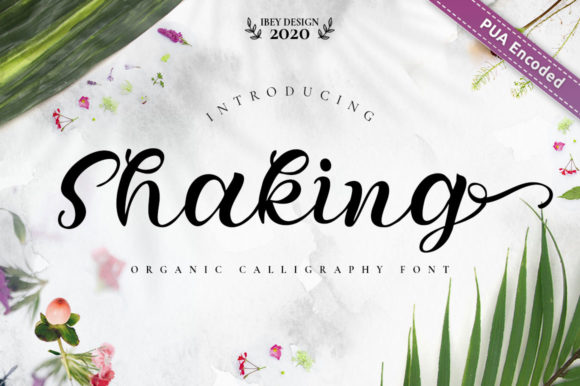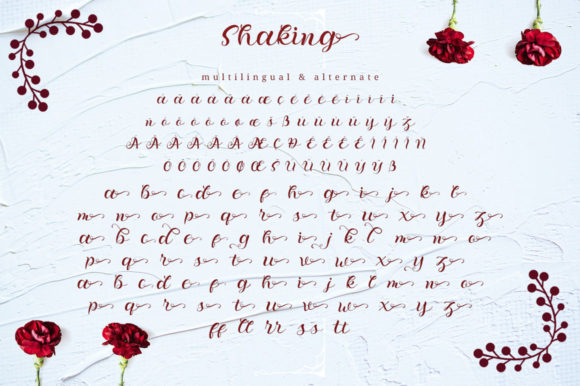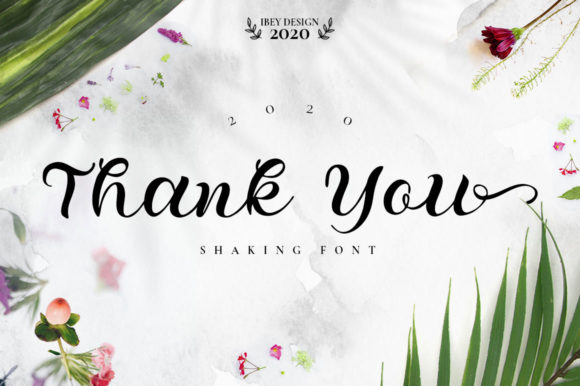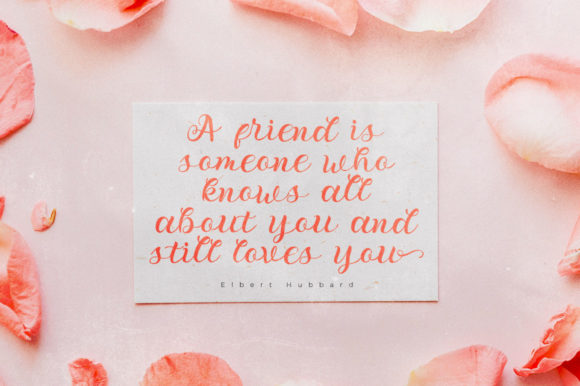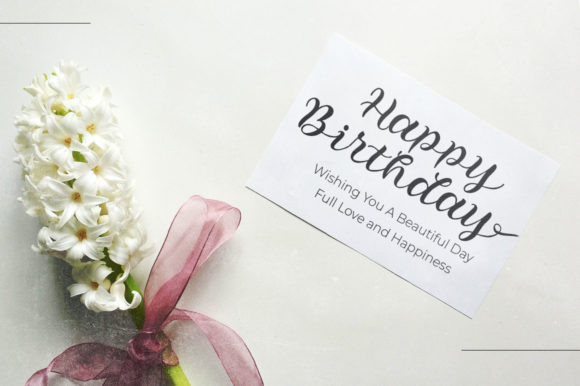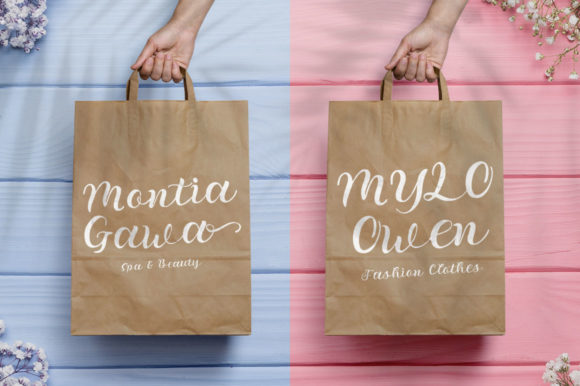
About Shaking Font
Introducing “Shaking,” an exquisite and flowing handwritten font that exudes elegance and sophistication. With its smooth lines and varying baseline, this font effortlessly captures the essence of calligraphy while infusing a contemporary and fresh touch. It is designed to elevate your creative projects to new heights, making them stand out with its stunning alternates and gorgeous glyphs.
The PUA encoding of “Shaking” provides easy access to all the glyphs and swashes, allowing you to explore the font’s full potential and unleash your creativity. Whether you’re working on wedding invitations, thank you cards, quotes, greeting cards, logos, business cards, or any other design that requires a handwritten touch, “Shaking” is the perfect choice to add a touch of elegance and charm.
This font’s versatility allows it to complement a wide range of design styles and themes, making it an ideal choice for both formal and casual projects. Its flowing and sophisticated appearance makes it perfect for elegant and classy designs, while its contemporary flair allows it to fit seamlessly into modern and trendy artworks.
With “Shaking” as your creative tool, you can craft wedding invitations that exude refined beauty and leave a lasting impression on your guests. Express gratitude and warm wishes with thank you cards that are a true work of art. Create captivating quotes and greeting cards that touch the hearts of your audience and leave them inspired.
Branding your business or personal projects with “Shaking” adds a touch of professionalism and style. Its classy calligraphic influences give your logos and business cards an air of sophistication, making your brand memorable and unforgettable.
“Shaking” allows you to bring a sense of fluidity and elegance to every design, making it an essential addition to your font collection. Fall in love with the charm and grace of “Shaking” and discover how it transforms your projects into captivating works of art.
So, embrace the beauty and versatility of “Shaking,” and let it be your go-to font for all your elegant and stylish designs. Experience the joy of creating with this exquisite font, and watch as it brings your creative vision to life in the most stunning way possible.